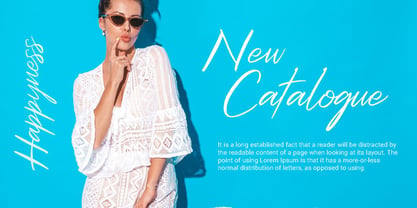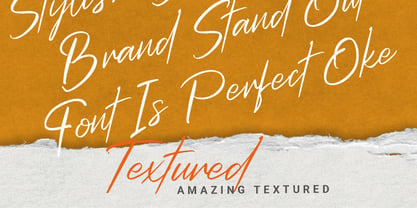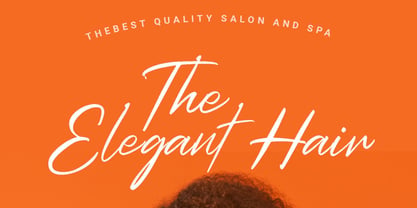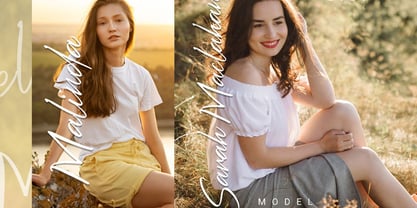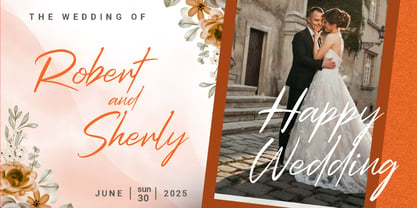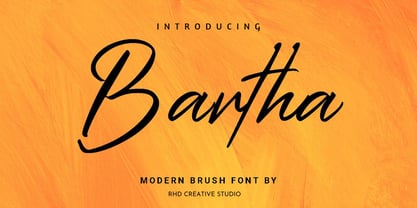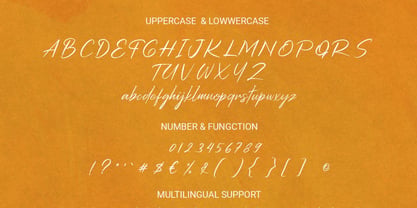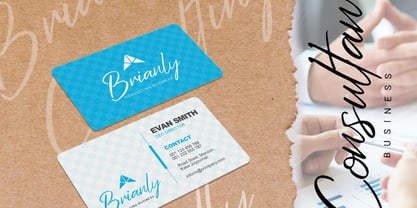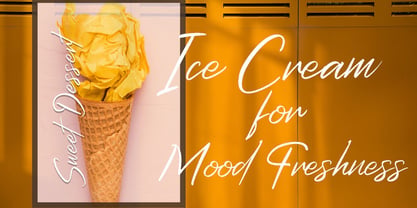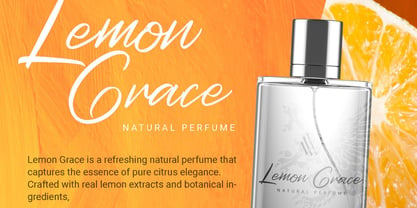
Bartha
Hello everyone, I would like to introduce Bartha - Modern Brush Font.
Bartha - Modern Brush Font with Handmade character. Bartha - Modern Brush Font , Modern font to make your design project stand out! Bartha is a perfectly choice for any creative endeavor, creating, modern, chic, lifestyle design such as logotype, title, cover, branding, invitations, wedding designs, display and magazine, social media posts, advertisements, printed quotes, product packaging, corporate brand, product designs, labels, photography, watermarks, special events and any other project with modern touch.